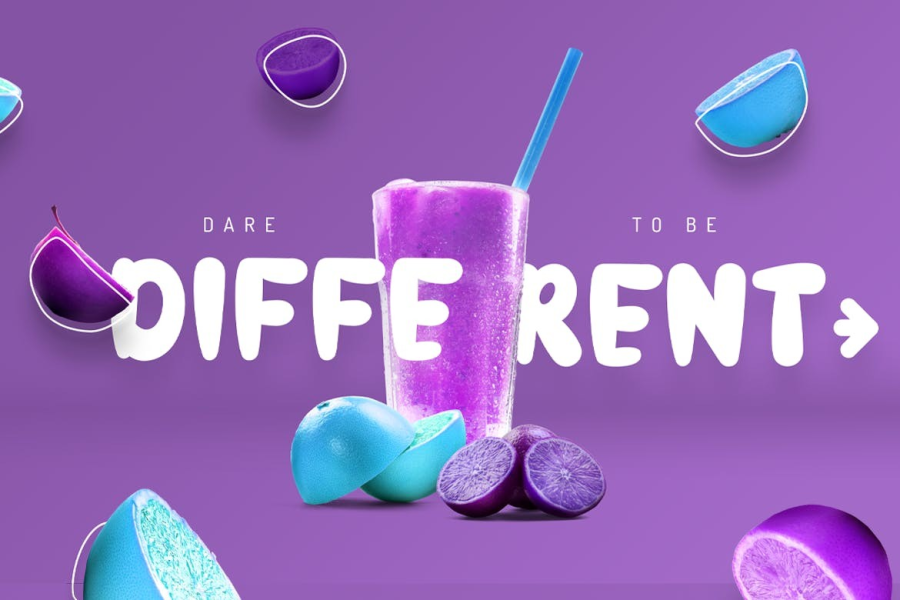
Fruit Juicer Font . ️ customize your own preview on ffonts.net to make sure it`s. The fruit juicer font contains 108 beautifully designed characters. Download fruit juicer font · free for personal use · this font is free for personal use only. Perfect for designing menus, logos, and food blogs. Explore our vibrant, refreshing 'free fruit, juice fonts'. Buy a commercial license here:. Download and install the fruit juicer font by pinisiart. Fruit juicer is a fancy type font that can be used on any device such as pc, mac, linux,. The fruit juicer font has been downloaded 4,335 times. While this font is free for personal use, any donations to support our work are greatly appreciated. Add a zest of creativity today! Fruit juicer font download is available free from fontget.
Explore our vibrant, refreshing 'free fruit, juice fonts'. The fruit juicer font contains 108 beautifully designed characters. Download and install the fruit juicer font by pinisiart. Fruit juicer font download is available free from fontget. Download fruit juicer font · free for personal use · this font is free for personal use only. The fruit juicer font has been downloaded 4,335 times. ️ customize your own preview on ffonts.net to make sure it`s. Buy a commercial license here:. Add a zest of creativity today! Perfect for designing menus, logos, and food blogs.
Fruit Juicer Font Fruit juicer font download is available free from fontget. Add a zest of creativity today! Fruit juicer font download is available free from fontget. Perfect for designing menus, logos, and food blogs. The fruit juicer font has been downloaded 4,335 times. Download fruit juicer font · free for personal use · this font is free for personal use only. Buy a commercial license here:. Fruit juicer is a fancy type font that can be used on any device such as pc, mac, linux,. The fruit juicer font contains 108 beautifully designed characters. Explore our vibrant, refreshing 'free fruit, juice fonts'. ️ customize your own preview on ffonts.net to make sure it`s. While this font is free for personal use, any donations to support our work are greatly appreciated. Download and install the fruit juicer font by pinisiart.
Fruit Juicer font by Pinisiart FontRiver Fruit Juicer Font Download and install the fruit juicer font by pinisiart. The fruit juicer font contains 108 beautifully designed characters. Fruit juicer is a fancy type font that can be used on any device such as pc, mac, linux,. The fruit juicer font has been downloaded 4,335 times. While this font is free for personal use, any donations to support our work. Fruit Juicer Font.
Fruit Juicer Font Download Fruit Juicer Font Add a zest of creativity today! The fruit juicer font has been downloaded 4,335 times. While this font is free for personal use, any donations to support our work are greatly appreciated. Download and install the fruit juicer font by pinisiart. Fruit juicer font download is available free from fontget. Fruit juicer is a fancy type font that can be. Fruit Juicer Font.
Juicer, fruit juicer, appliance, healthy, extraction icon Download on Fruit Juicer Font While this font is free for personal use, any donations to support our work are greatly appreciated. Perfect for designing menus, logos, and food blogs. Add a zest of creativity today! Buy a commercial license here:. Fruit juicer font download is available free from fontget. The fruit juicer font has been downloaded 4,335 times. Download and install the fruit juicer. Fruit Juicer Font.
Fruit juice logo. Fresh drink logo, Healthy Drink Logo Design Stock Fruit Juicer Font Add a zest of creativity today! Fruit juicer font download is available free from fontget. The fruit juicer font has been downloaded 4,335 times. While this font is free for personal use, any donations to support our work are greatly appreciated. Buy a commercial license here:. Download and install the fruit juicer font by pinisiart. ️ customize your own preview. Fruit Juicer Font.
Juicers Fruit Extractors Portable Juicer Blender Juicer Vegetables Fruit Juicer Font Add a zest of creativity today! Explore our vibrant, refreshing 'free fruit, juice fonts'. While this font is free for personal use, any donations to support our work are greatly appreciated. Fruit juicer is a fancy type font that can be used on any device such as pc, mac, linux,. The fruit juicer font contains 108 beautifully designed characters. Download. Fruit Juicer Font.